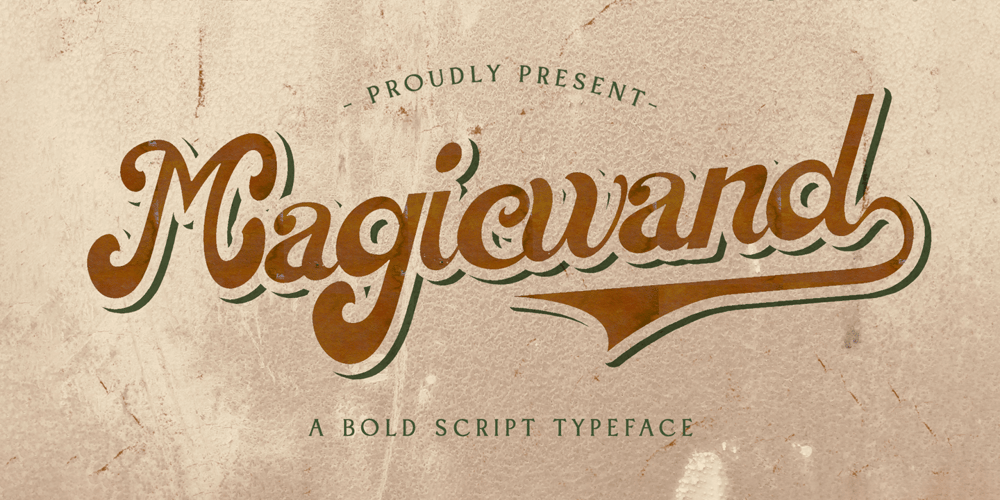
Magic Wand Font Family was designed by Virgiawan Listanto and published by Stringlabs Creative Studio. Magic Wand contains 1 styles and family package options. Magic Wand is a great script font with a retro style. Clean and a little bit quirky, this font is the perfect fit for all of your logos, branding, social media, and crafty DIY projects.